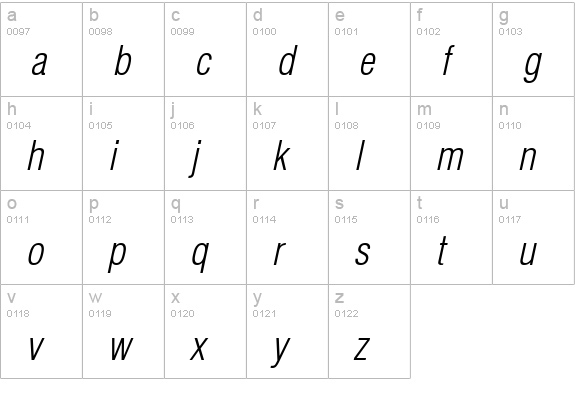
Context Light Condensed SSi Light Condensed Italic is a refined, elegant, condensed-width, italic variant in the Context typeface family \xE2\x80\x94 well suited to elegant body text, refined sub-headings, and luxury branding.
The Context Light Condensed SSi Light Condensed Italic font exudes elegance and modernity with its sleek and sophisticated design. Its slender and stylish letterforms convey a sense of refinement and professionalism, making it an ideal choice for various design projects. The italicized style adds a touch of flair and dynamism to any text, making it stand out beautifully. The best part is that this stunning font is available for free download at FontsMarket.com. Whether you're working on a branding project, website design, or any creative endeavor, the Context Light Condensed SSi Light Condensed Italic font will elevate your work to new heights. Embrace the versatility and charm of this font and let your creativity shine with every use.